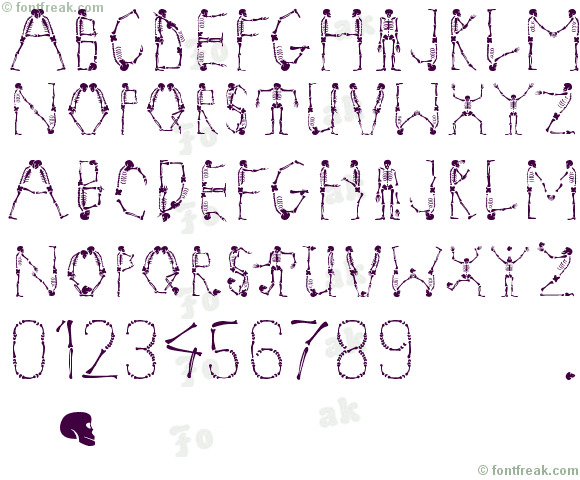
TangoMacabre
About TangoMacabre
TangoMacabre by Manfred Klein is a unique decorative font that brings a playful yet macabre aesthetic to your design projects. This font features a quirky design where each letter is represented by stylized skeletal figures, making it an eye-catching choice for projects that require a touch of whimsy and a hint of spookiness. The overall stroke weight is light, creating a delicate contrast that enhances its visual appeal. The spacing between letters is well-balanced, ensuring legibility while maintaining the playful spirit of the typeface.
Ideal use cases for the TangoMacabre font include Halloween-themed invitations, where its distinctive character can set the perfect tone for spooky celebrations. It also works wonderfully for movie posters, particularly for horror or supernatural genres, capturing the attention of potential viewers with its imaginative design. Additionally, this font can elevate restaurant menus that aim for a quirky, thematic dining experience, especially in establishments that embrace a playful or gothic aesthetic. Graphic designers looking to create engaging social media graphics will also find this font useful, as its unique style can help stand out in crowded feeds.
What sets TangoMacabre apart is its delightful combination of charm and eeriness, making it a memorable choice for those seeking to convey a sense of fun while embracing the unconventional. With its unique character representation, this font is sure to leave a lasting impression.